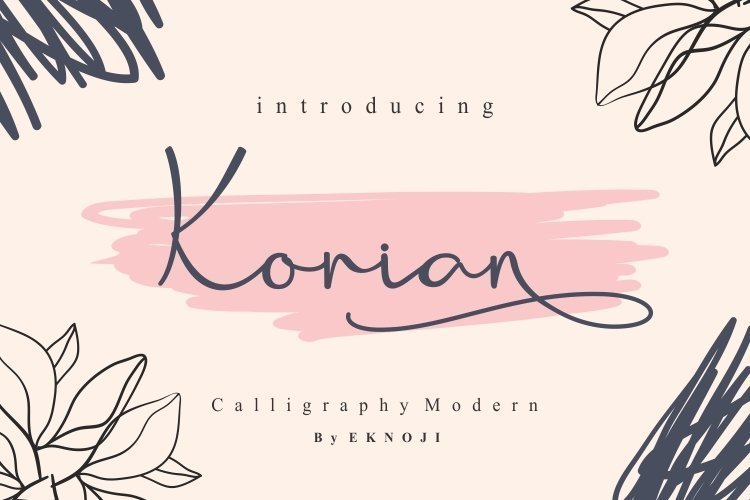
Korian Script Font a modern handwritten font. This font will looks awesome and amazing in many way to your latest project. Korian is perfect for many different project such as logos & branding, invitation, stationery, wedding designs, social media posts, advertisements, product packaging, product designs, label, photography, watermark, special events or anything.